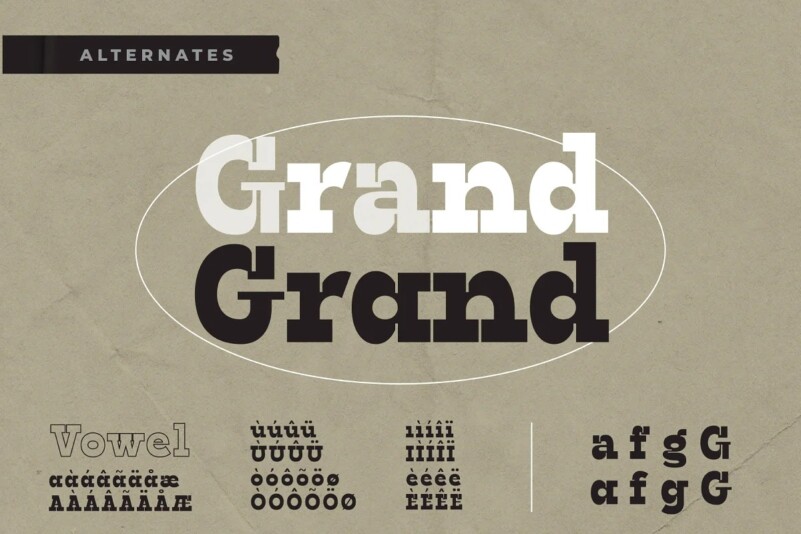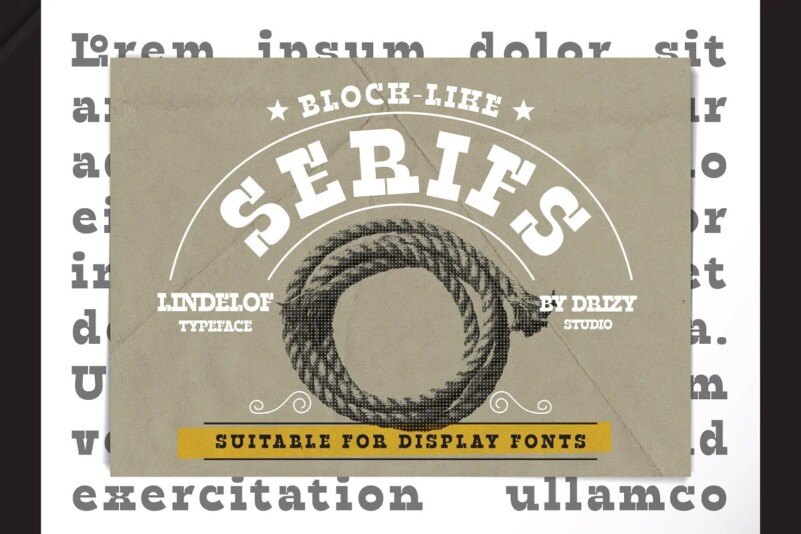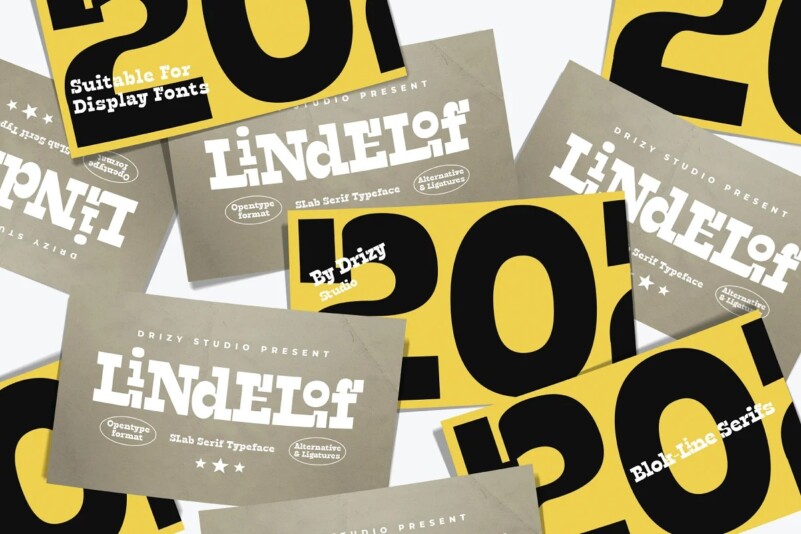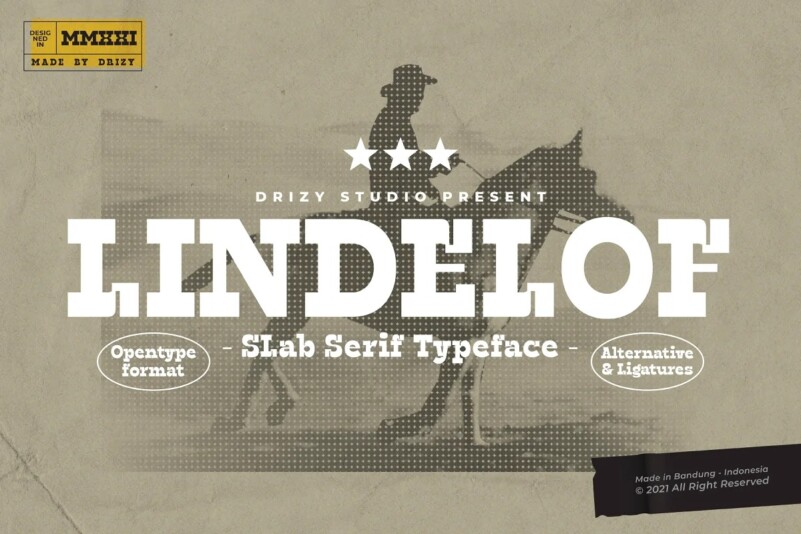
Lindelof Font
Lindelof Slab Serif Font is a strong, sturdy, versatile font for sports applications and much much more. Lindelof finds its inspiration in the style of mid-19th century typefaces using generous slab serifs and a hard-working appearance. Offering all the basic styles you will need for a successful project. Such as logo branding, editorial design, stationery design, sport design, blog design, modern advertising design, card invitation, art quote, home decor, book/cover title, special events and any more.